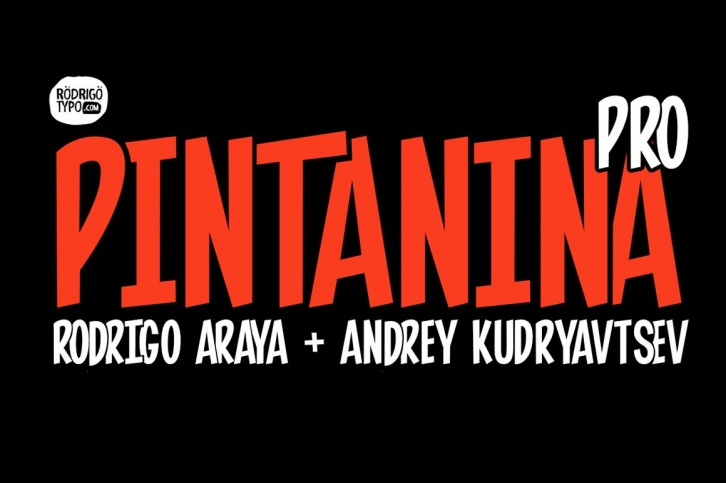
Name: Pintanina Pro
Year: 2015
Author: Rodrigo Araya + Andrey Kudryavtsev
Concept: It is redesigning pintanina 2013, now improved certain details, and contains much more ligatures, always inspired by the great Latin American comic as Condorito, high and thin typeface